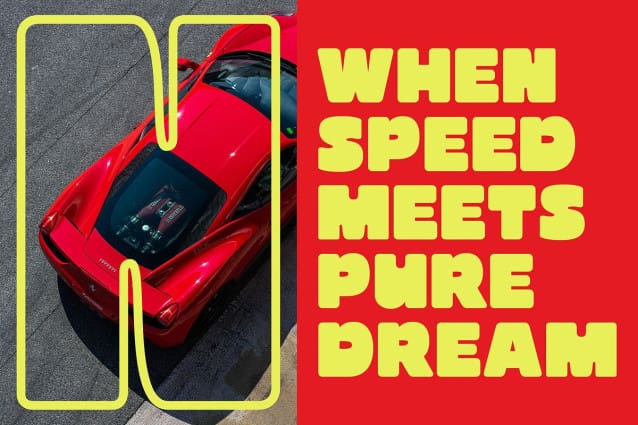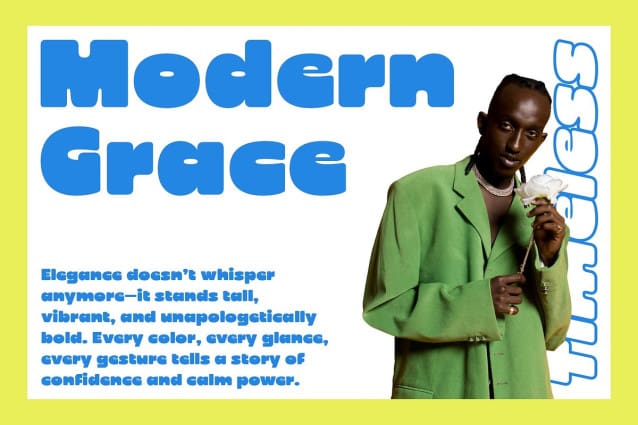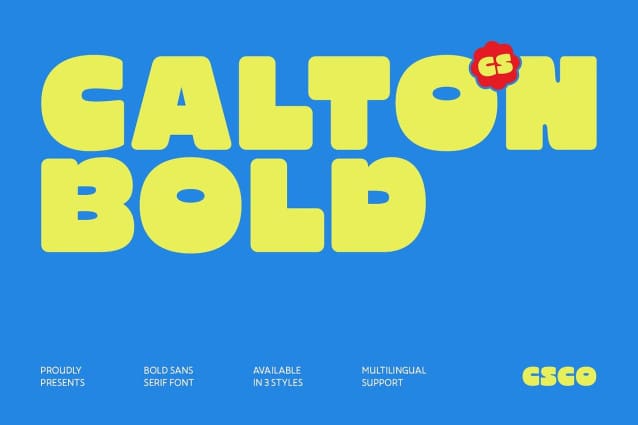
CS Calton Font
CS Calton Font – Bold Power, Modern Presence: Display Sans Serif for Maximum Impact.Strong Design for Bold Statements This a bold display sans serif font crafted to command attention. With its powerful strokes and confident letterforms, this font is built for visual impact. Each character projects strength and clarity, making it ideal for designs that demand presence and authority.
Expressive Character with Modern Simplicity Beyond its boldness, this font maintains a clean and modern look. The balanced proportions and smooth geometry give it a professional yet expressive personality. It’s designed to make your message stand out whether on a large headline, striking logo, or dynamic poster composition.
Perfect for Branding and Visual Identity When you want your brand to be seen and remembered, delivers. Its bold form captures attention instantly, while its simplicity ensures timeless appeal. From packaging to promotional campaigns, this font enhances your visual identity with confidence and style.
Ideal for Posters, Headlines, and Strong Displays This font excels in all forms of display design. Its commanding presence and refined boldness make it perfect for editorial titles, impactful signage, or statement graphics. Wherever you use it, this font guarantees a design that feels modern, fearless, and full of energy.